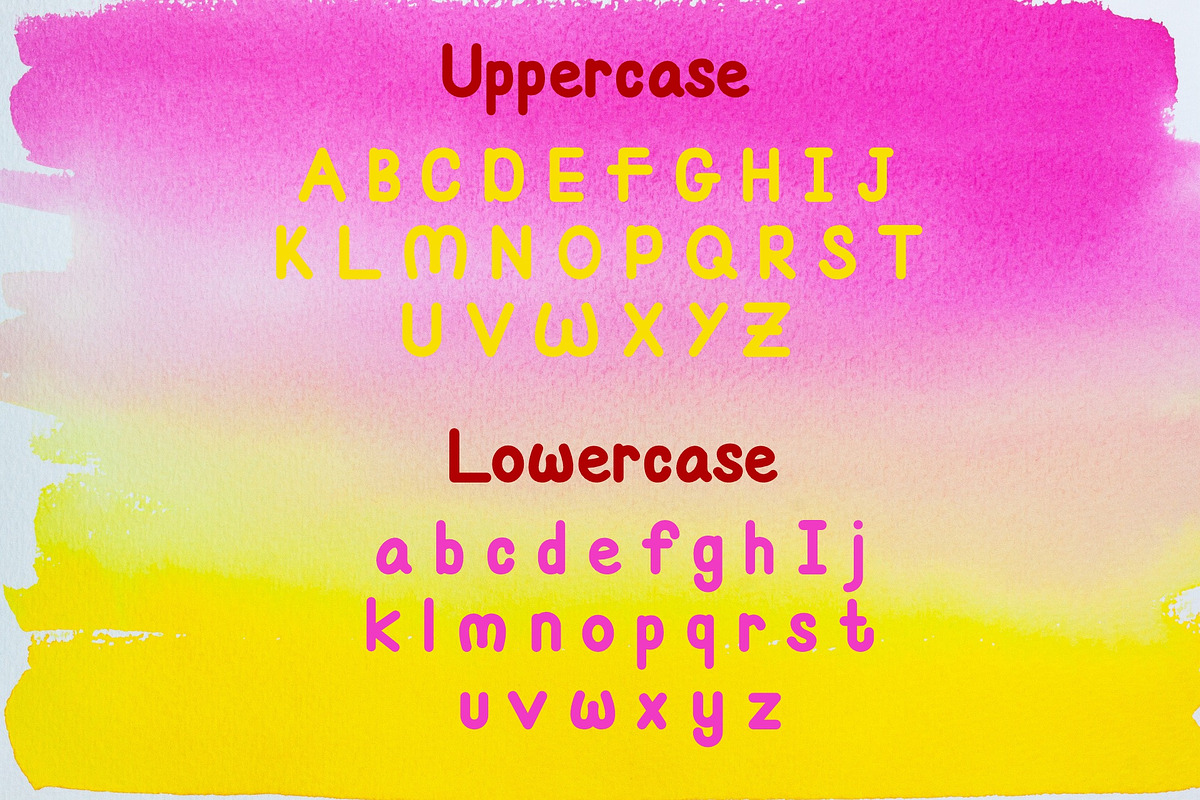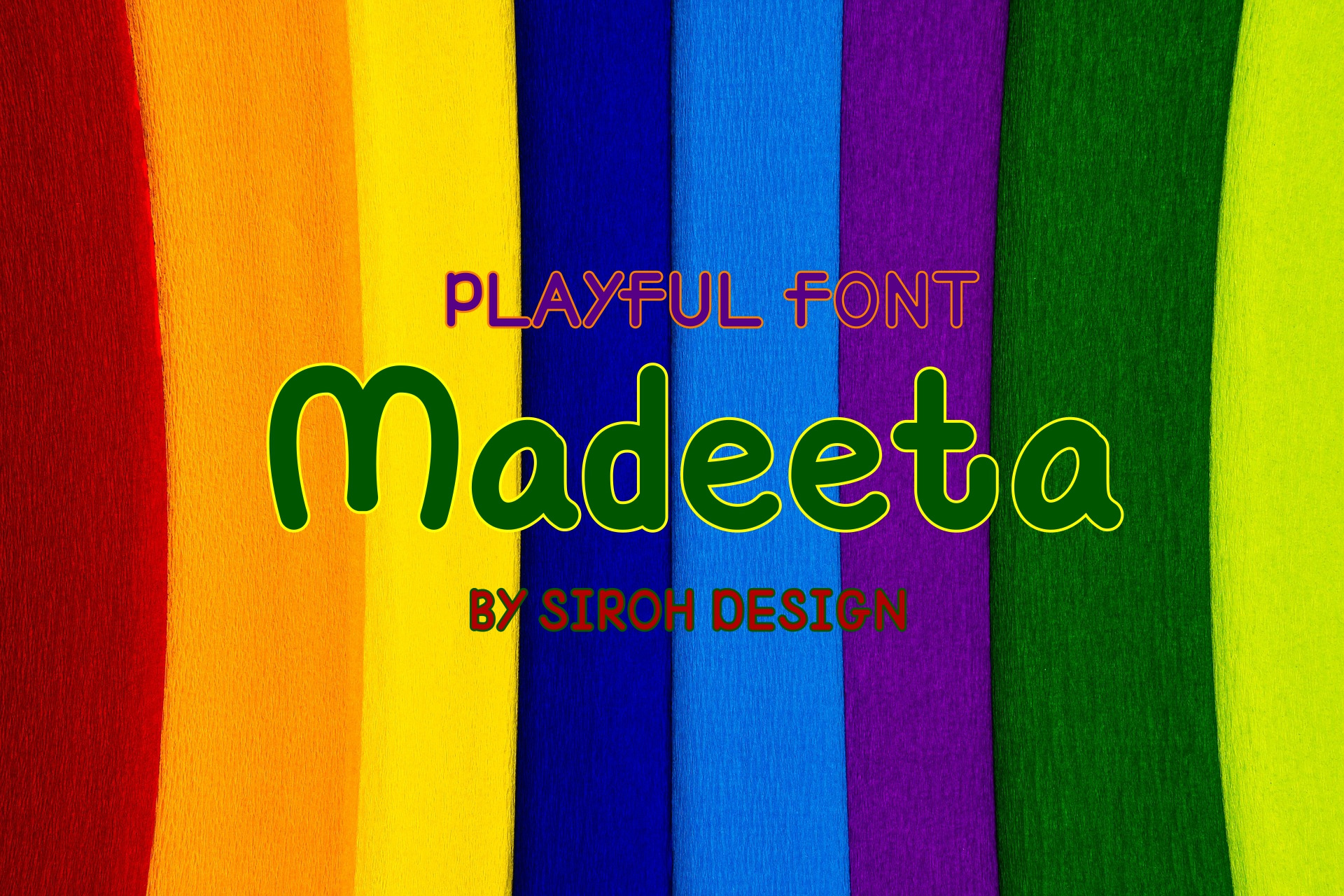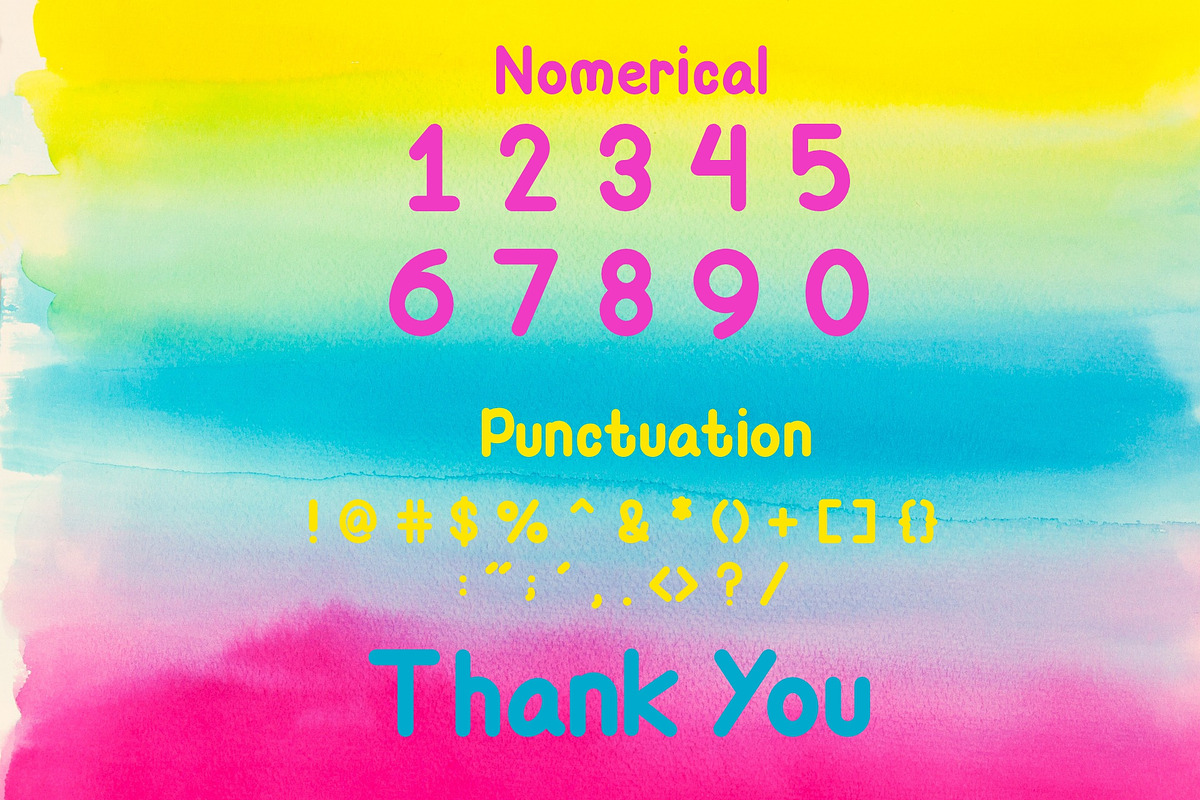
Madeeta Font
Madeeta is a sweet and friendly handwritten font. Its natural and unique style makes it incredibly fitting to a large pool of designs. The only limit is your imagination!